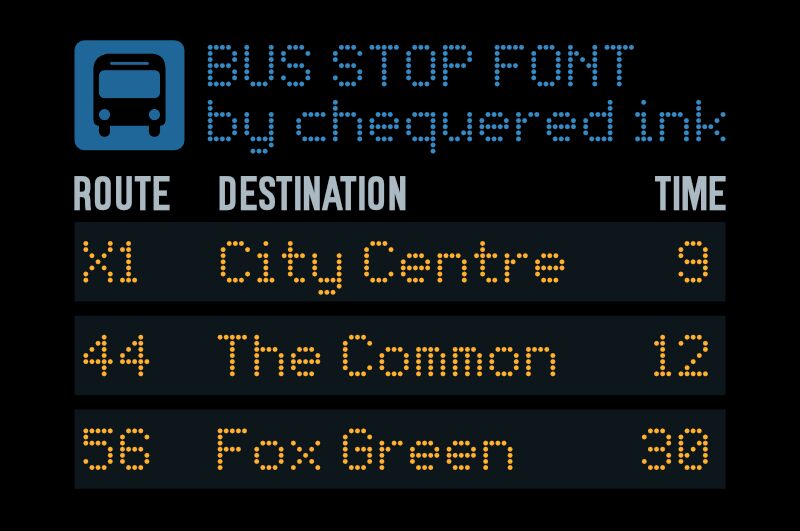
Bus Stop Regular
Bus Stop is a striking digital font designed by Chequered Ink. With its bold, geometric shapes and distinctive dot-based construction, this font exudes a retro-futuristic charm that captivates the eye. The strikingly angular letterforms and the rhythmic pattern of the dots create a sense of movement and energy, making Bus Stop a captivating choice for attention-grabbing headlines, logos, and display text.
The unique visual style of Bus Stop lends itself well to a variety of design applications, from modern branding and packaging to dynamic editorial layouts. Its bold, eye-catching presence makes it an ideal selection for projects that require a strong, impactful typographic statement, such as event posters, album covers, or product advertisements. The versatility of Bus Stop allows designers to incorporate it into both contemporary and retro-inspired design schemes, making it a versatile addition to any creative toolkit.